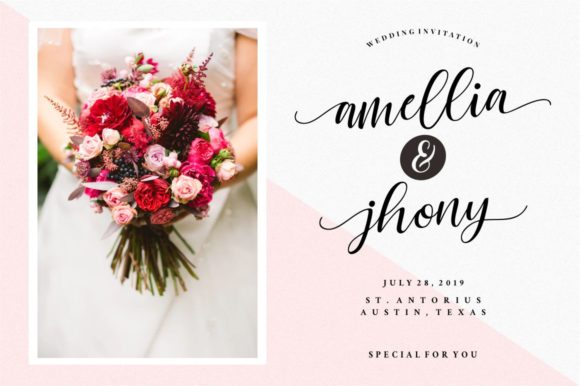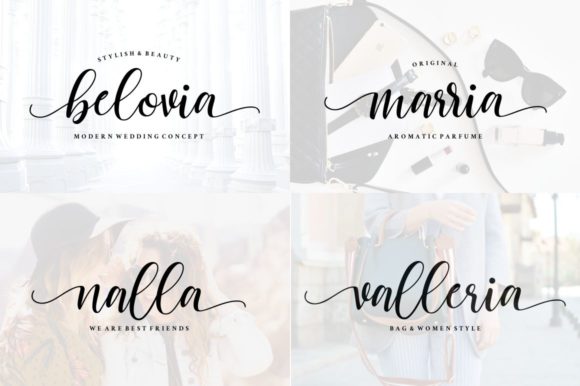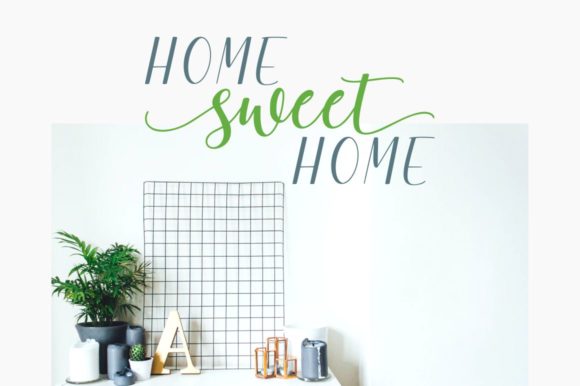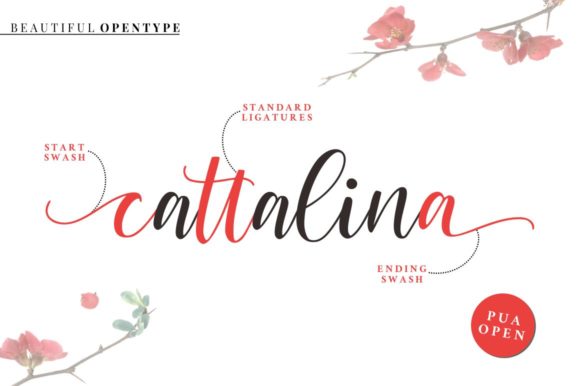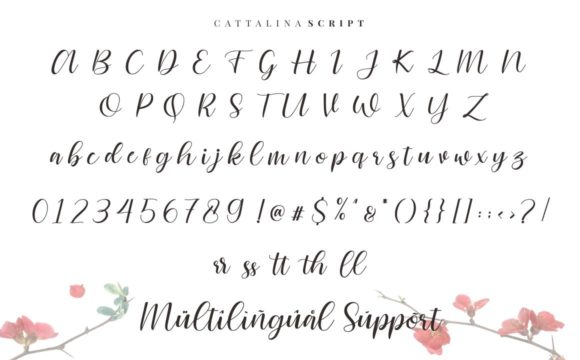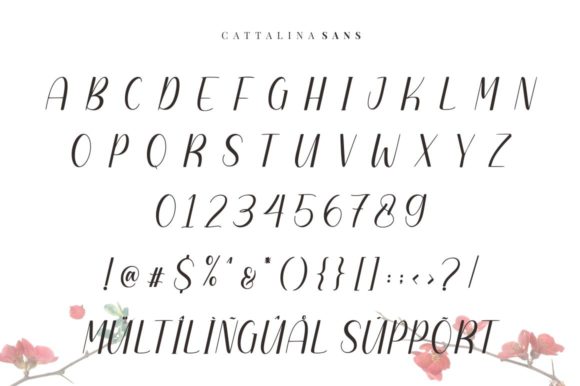
The Perfect Script for Your Next Project
| 👤 Author | goodjavastudio |
Enter Cattalina Font, a luxury script that brings a natural and modern handwritten feel to your projects. This versatile font is perfect for a variety of applications, from elegant invitations to modern signage. With its unique blend of sophistication and approachability, Cattalina Font is a valuable addition to any designer’s toolkit.
Cattalina Font Key Features
- Unique Characteristics: Cattalina Font features a unique, elegant design with a mix of modern and classic elements, making it suitable for various design projects.
- Style Variations: Cattalina Font comes in multiple styles, including regular, bold, italic, and bold-italic, offering designers a range of options to suit their needs.
Cattalina Font Review
I recently had the chance to work with the Cattalina font, and I must say it’s a lovely addition to any design project. Here are some things that caught my attention:
- ✨ Elegant and refined aesthetic: The Cattalina font exudes a sense of sophistication and elegance, making it perfect for high-end branding and marketing materials.
- ✨ Versatility: This font is suitable for both print and digital applications, from business cards to website headers.
- ✨ Consistency: The font’s uniformity in terms of line spacing, letterform proportions, and overall structure makes it a pleasure to work with.
- ⚠️ Limited language support: The Cattalina font might not be suitable for projects requiring extensive language support, as it may not be available in as many languages.
- ⚠️ Not ideal for body text: Due to its elegant yet condensed design, Cattalina may not be the best choice for large blocks of body text.
Overall, the Cattalina font is a great addition to any designer’s toolkit, offering a unique blend of sophistication and versatility. While it may have its limitations, it’s perfect for specific projects where its elegant aesthetic is a must.
Catalina Font: A Practical Application Guide
For optimal results, use the Catalina Font in conjunction with a clean and modern design aesthetic. Consider pairing it with bold colors and simple graphics to create a visually appealing visual identity. Additionally, use the font consistently throughout your design to create a cohesive look and feel.
The Catalina Font is well-suited for a variety of applications, including:
– Marketing materials (e.g., brochures, flyers)
– Digital signage
Alternatives to Cattalina Font for Designers
Avenir Next is similar to Cattalina Font in its modern and clean design, but it has a more geometric feel and a wider range of weights. It is also more versatile and can be used in a variety of contexts, from body text to headings.
Montserrat is similar to Cattalina Font in its modern and clean design, but it has a more geometric feel and a stronger emphasis on bold typography. It is also more suitable for headings and titles than body text.
Q: Are there any font pairing suggestions for Cattalina?
Yes, Cattalina Font pairs well with other sans-serif fonts, such as Open Sans and Lato. For a more elegant look, consider pairing Cattalina with a serif font like Merriweather or Georgia. Experiment with different font combinations to find the perfect match for your design project.